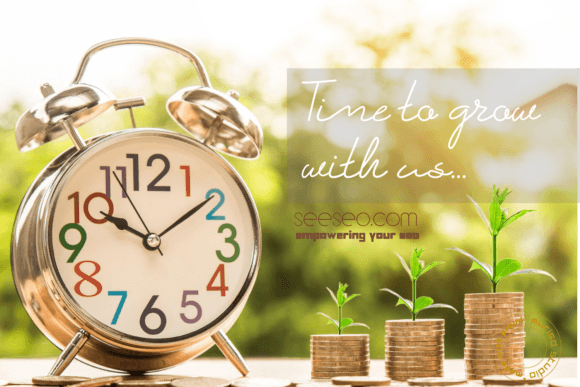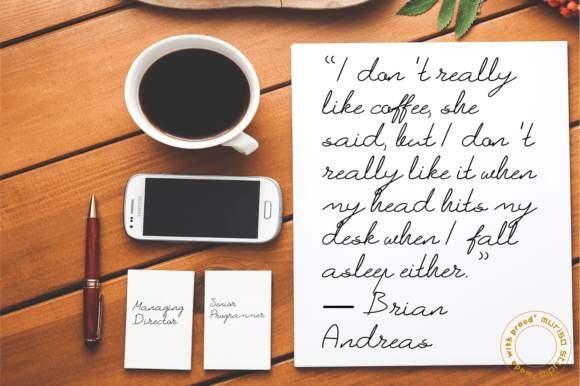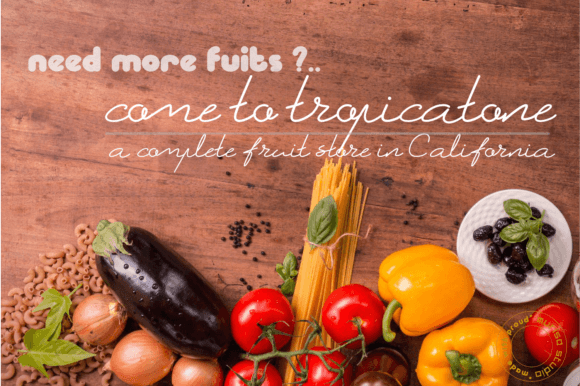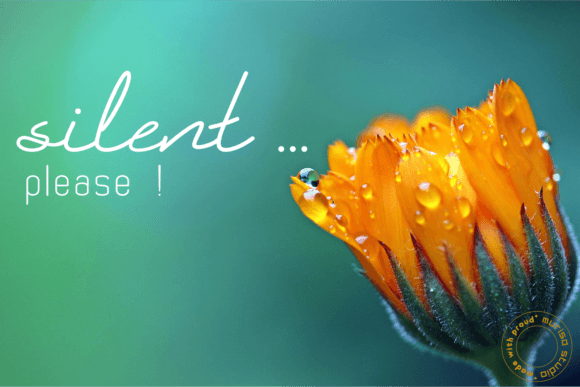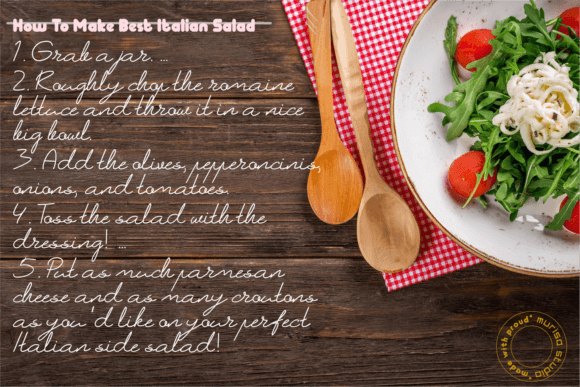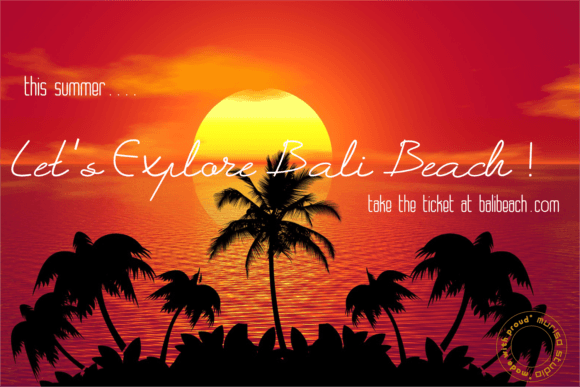
Catherine Font: A Lovely Handwritten Font for Endless Creativity
Are you a designer or crafter looking for a font that adds a personal touch to your projects? Look no further than the Catherine Font, a beautiful handwritten font designed to bring joy and beauty to your creations. In this article, we’ll dive into the world of Catherine Font, exploring its features, uses, and benefits, as well as provide tips and inspiration for incorporating it into your work.
What is Catherine Font?
Catherine Font is a carefully crafted handwritten font, created with love and attention to detail. Its designer aimed to create a font that would be perfect for projects that require a personal feel, such as invitation cards, letters, and other creative endeavors. With its unique and charming character, Catherine Font is sure to add a touch of warmth and personality to any project.
Key Features of Catherine Font
- Handwritten style: Catherine Font boasts a beautiful, handwritten style that adds a personal touch to any project.
- Perfect for holidays and special occasions: This font was created especially to accompany end-of-year holidays, making it ideal for Christmas cards, New Year’s invitations, and other seasonal projects.
- Easy to read and elegant: Catherine Font is designed to be both elegant and easy to read, making it perfect for use in invitations, letters, and other written materials.
- Versatile: This font can be used for a wide range of projects, from digital designs to print materials, and even craft projects like scrapbooking and card making.
Uses for Catherine Font
Catherine Font is a versatile font that can be used in various projects, including:
- Invitation cards: Create beautiful and personalized invitations for weddings, birthday parties, and other special occasions.
- Letters and correspondence: Add a touch of elegance and personality to your letters and correspondence.
- Digital designs: Use Catherine Font in your digital designs, such as social media graphics, blog posts, and email newsletters.
- Print materials: Incorporate Catherine Font into your print materials, like brochures, flyers, and posters.
- Craft projects: Add a personal touch to your craft projects, such as scrapbooking, card making, and journaling.
Tips for Using Catherine Font
To get the most out of Catherine Font, here are some tips to keep in mind:
- Experiment with sizes and colors: Try out different font sizes and colors to add visual interest and personality to your projects.
- Mix and match with other fonts: Combine Catherine Font with other fonts to create a unique and eye-catching design.
- Use it for headings and titles: Use Catherine Font for headings and titles to add a touch of elegance and sophistication.
- Don’t be afraid to get creative: Catherine Font is a versatile font that can be used in many different ways, so don’t be afraid to experiment and try new things.
Catherine Font is a beautiful and versatile handwritten font that’s perfect for designers and crafters looking to add a personal touch to their projects. With its unique character, elegance, and ease of use, Catherine Font is sure to become a favorite in your font collection. Whether you’re creating invitations, digital designs, or craft projects, Catherine Font is the perfect choice for adding a touch of joy and beauty to your work.